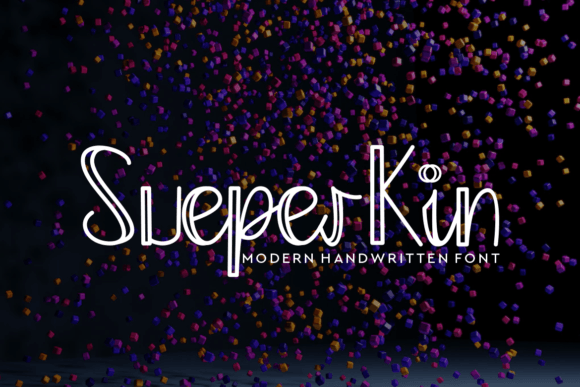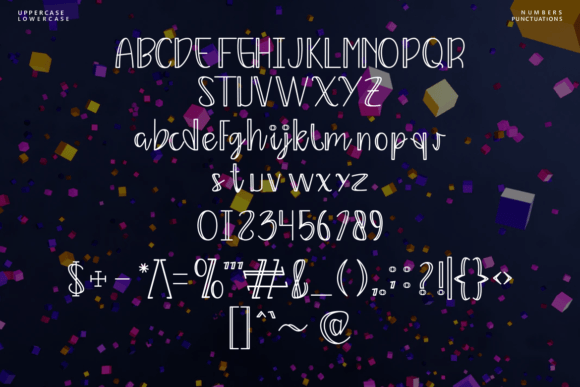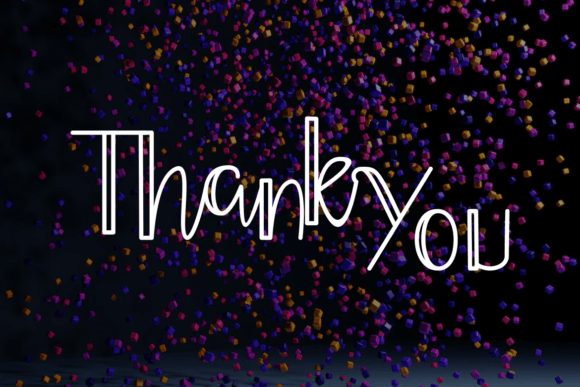
Sueperkin Font
About Sueperkin Font
**Sueperkin**: *Where Playful Youthfulness Meets Creative Versatility*
Sueperkin isn’t just a font; it’s a unique and playful script font that exudes a youthful vibe, meticulously designed to add a touch of fun to a wide variety of projects. With its distinctive character and creative versatility, this font effortlessly brings a sense of playfulness and charm to your designs, making it the perfect choice for a diverse range of creative endeavors.
What sets Sueperkin apart is its remarkable ability to seamlessly combine youthful vibes with creative versatility. The font’s carefully crafted characters exude an air of authenticity and creativity, making it an ideal choice for projects that require a touch of uniqueness and a high level of impact. Sueperkin is the font that can effortlessly enhance your signature, stationery, logo, wedding materials, typography quotes, magazine or book covers, website headers, clothing designs, branding, packaging, and much more, ensuring they shine with a distinct sense of style and playfulness.
Sueperkin strikes the perfect balance between modern aesthetics and youthful charm, making it a versatile and invaluable choice for projects that aim to engage and captivate.
In signature designs, Sueperkin adds a unique sense of character and personality, making them even more memorable and personalized. For branding and logo design, the font’s playful script enhances the visual appeal of your content, making it more captivating and relatable. Whether you’re working on digital or print projects, Sueperkin brings an air of youthful creativity and versatility to your creative work.
One of Sueperkin’s most remarkable qualities is its adaptability. It can seamlessly transition from a laid-back and friendly tone to a more spirited and expressive one, making it suitable for a wide range of creative applications. Its ability to evoke youthful vibes and creative versatility ensures that it remains a cherished choice for designers and creators across diverse industries.
In summary, Sueperkin is more than just a font; it’s a design asset that masterfully combines youthful playfulness with creative versatility. Its unique blend of playful characters and distinctive charm positions it as an indispensable tool for anyone seeking to infuse their creative projects with a touch of style and fun. Embrace the playful youthfulness and creative versatility of Sueperkin, and watch your designs come to life with ease and artistic flair, impressing in any context and captivating your audience with its distinctive and charming presence.